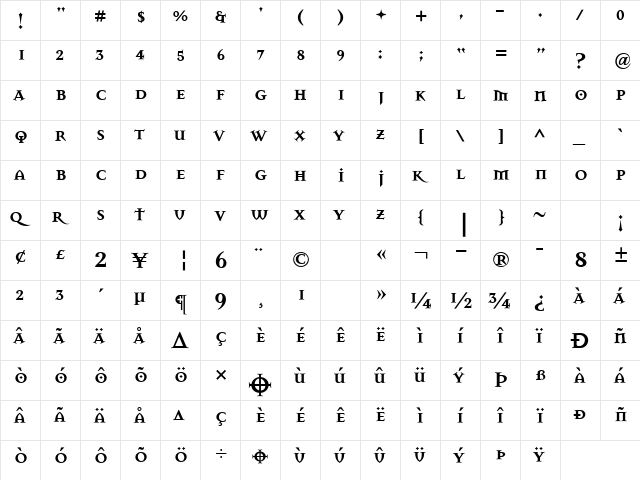
MansonSuper Bold
Design Context for MansonSuper Typeface
MansonSuper is a composed and adaptable typeface that performs quietly and consistently across a wide range of design contexts. The heavy weight commands attention and anchors typographic hierarchies.